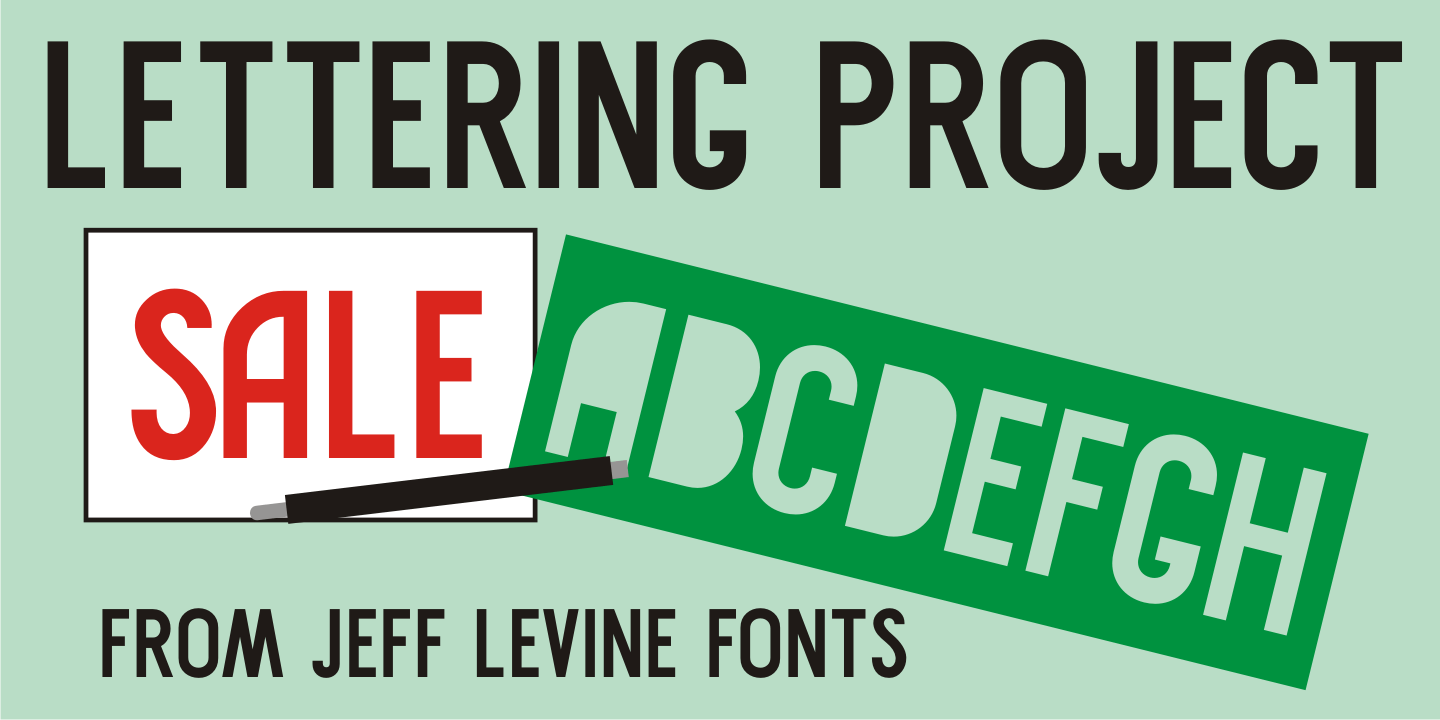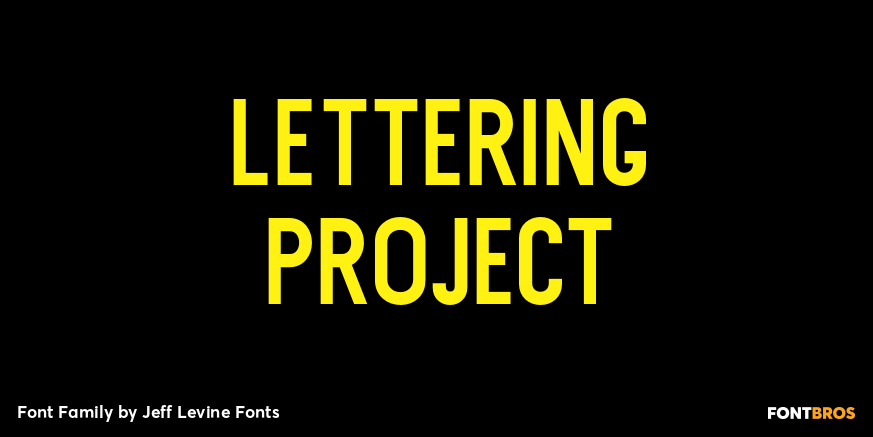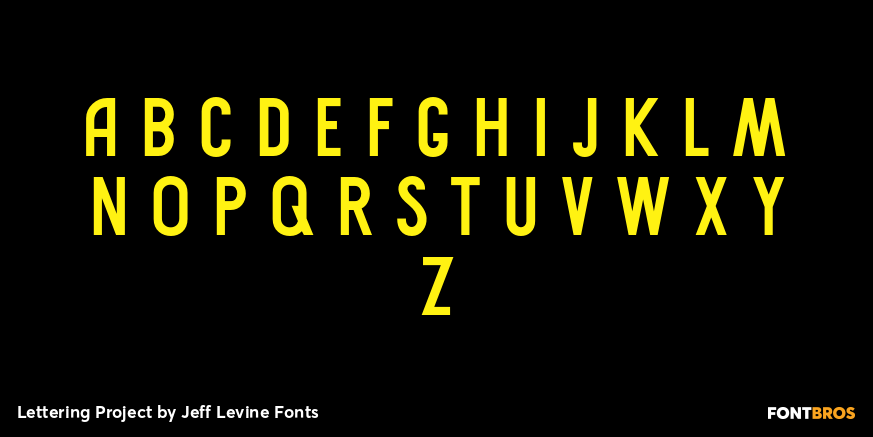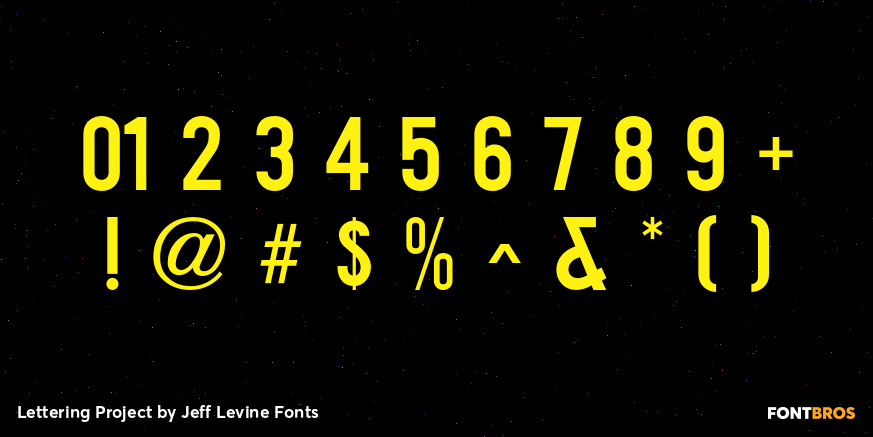
Lettering Project
Lettering Project JNL was based on one of the many templates made by the Wood-Regan Instrument Company (also known as Wrico). Their sign making kits allowed anyone using the templates, special ink pens and alignment guides to create professional looking lettering with a minimum of experience.
Lettering Project by Jeff Levine Fonts